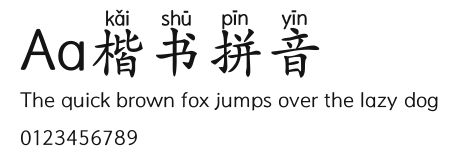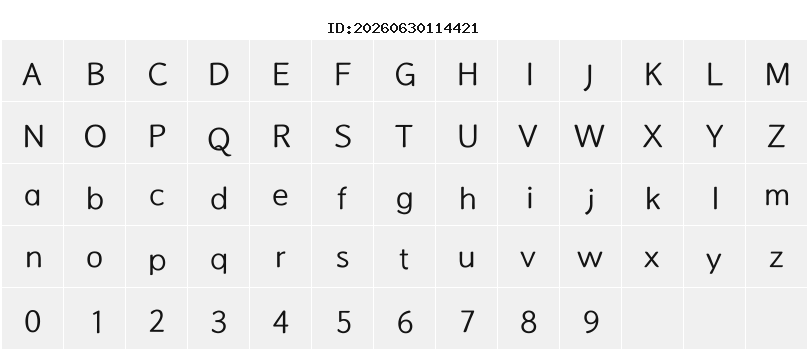
Aa楷书拼音 Preview
• Font Name: Aa楷书拼音
• Font Style: 常规
• Font ID: 1.000;Aa;AaKaishupinyin;2016
• Full Font Name: Aa楷书拼音
• PostScript Name: AaKaishupinyin
• Character Count: 12063
• Designer: Aa
• Manufacturer: 翰美互通(厦门)科技有限公司
• Description: AaKaishupinyin is a fantastic font with excellent features designed for user interfaces and electronic communications.
About Aa楷书拼音.ttf
Aa楷书拼音.ttf is a modern, elegant sans-serif font designed for ultimate readability and visual harmony. Perfect for branding, headlines, web design, and print materials.